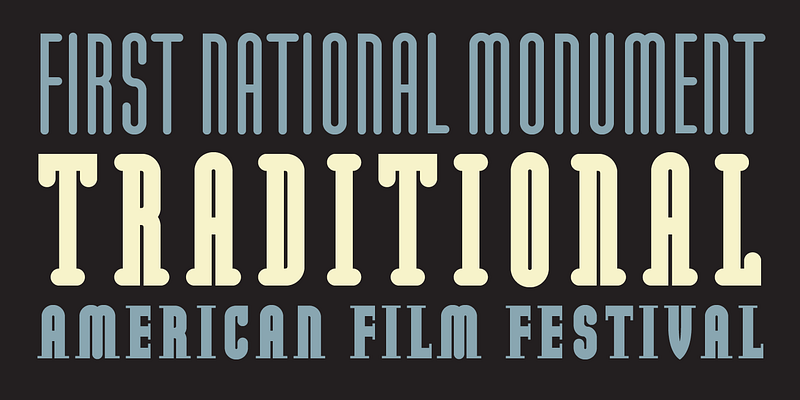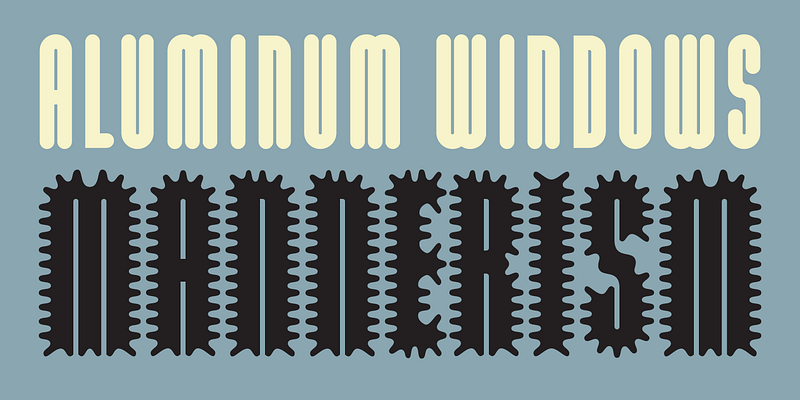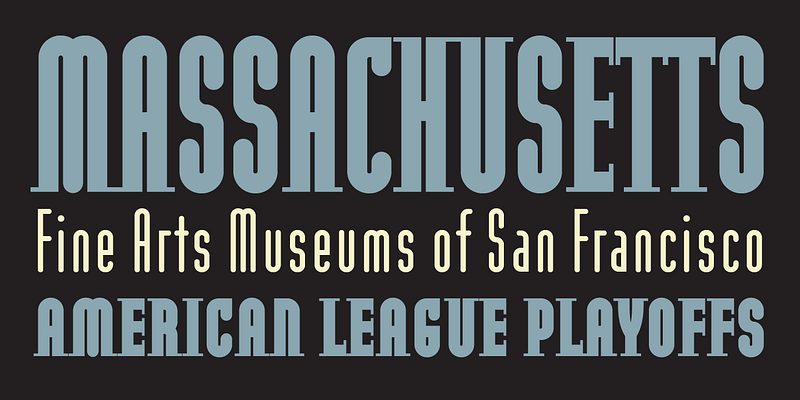
When Emigre first started manufacturing fonts, the font format was still a very closed environment. Once the installable and downloadable files were manufactured, the user was limited to setting type with the typeface as it was designed. Years later, it became possible for designers to import the character outlines into drawing programs which enabled them to then alter individual letters in order to create customized letter and word combinations. Within a short time Licko began seeing mutated versions of Modula letterforms used in various applications, such as logotypes. Many of these had the diagonal serifs removed or the angular diagonal forms smoothed out. In answer to this Licko decided to expand the Modula family, incorporating some of these ideas.
The first addition was a Round version, characterized by the abandonment of the diagonal serif elements, the addition of rounded end strokes, and the replacement of the angular diagonal strokes with flowing curved diagonals in characters such as the k x s and z. To dramatize it’s impact as a headline font, Licko also gave the Round version a narrower, more elegant proportion than the original Modula. To extend its usage and provide a wider variety of formal choices when composing headlines or logotypes, Small Cap versions were added as well.